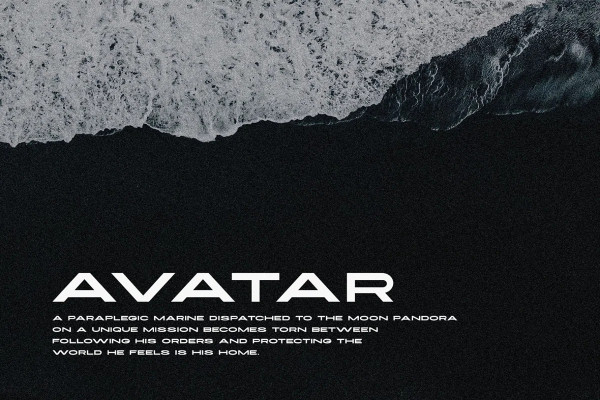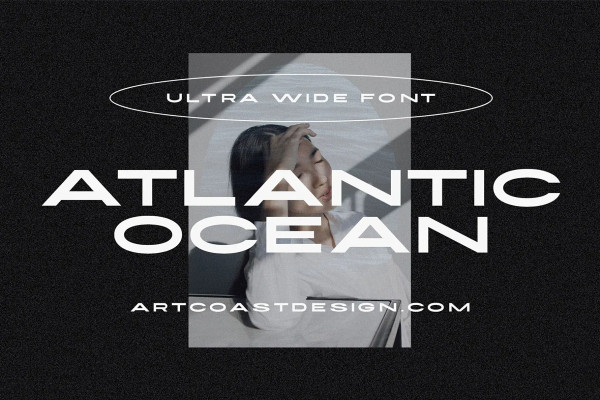
Atlantic Ocean Font
Atlantic Ocean Font is a new classic casual sans serif wide font. “SA AtlanticOcean” will perfect for many project: fashion, magazines, logo, branding, photography, invitations, wedding invitation, quotes, blog header, poster, advertisements, postcard, book, websites, etc.